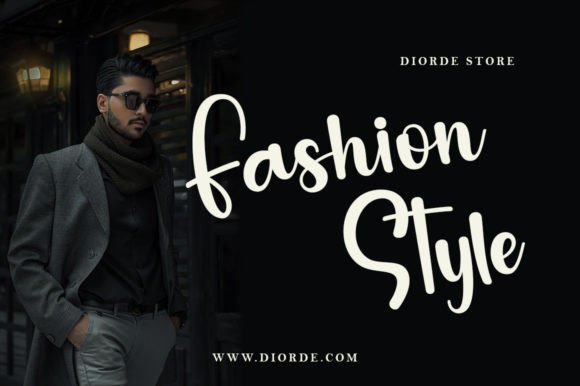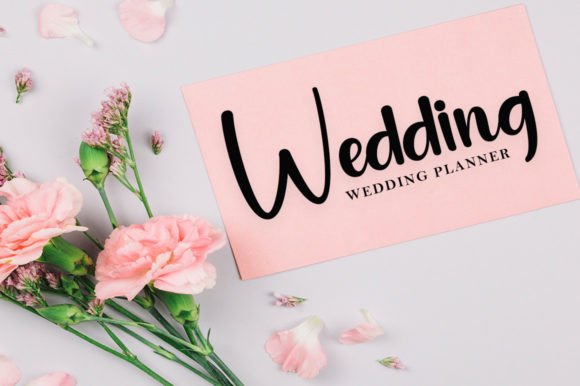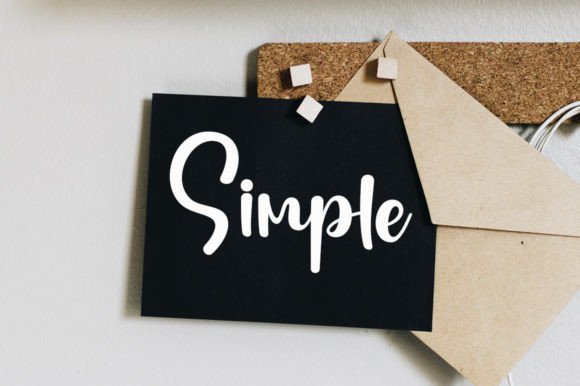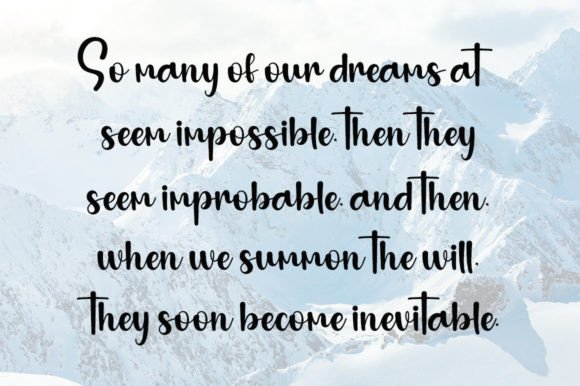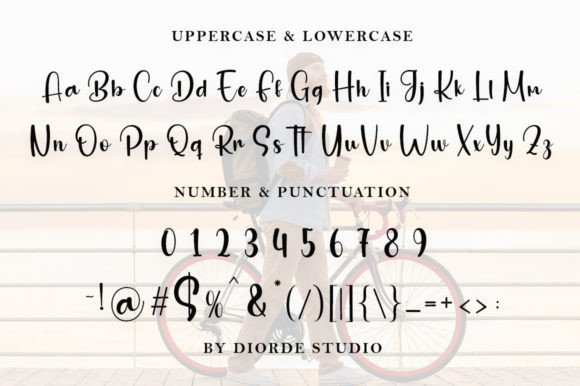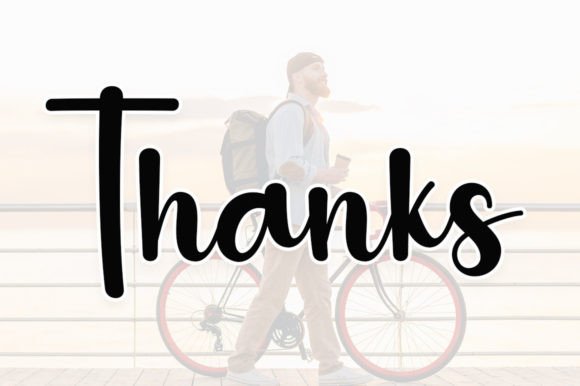
Biker Font: Adding a Sweet and Friendly Touch to Your Designs
Are you looking for a font that can add a fun and playful touch to your designs? Look no further than Biker Font! This sweet and friendly handwritten font is perfect for creating wedding invitations, cards, and other designs that require a personal and approachable feel. In this article, we’ll take a closer look at Biker Font, its features, and how you can use it to elevate your designs.
What is Biker Font?
Biker Font is a fresh and neat handwritten font that is designed to bring a sense of fun and playfulness to your designs. Its sweet and friendly style makes it perfect for a variety of projects, from wedding invitations and cards to posters and social media graphics. The font’s clean and simple lines ensure that it remains legible and easy to read, making it a great choice for designers and crafters.
Key Features of Biker Font
- Sweet and Friendly Style: Biker Font has a unique and charming style that is sure to capture the attention of your audience.
- Fresh and Neat Design: The font’s clean and simple lines make it easy to read and perfect for a variety of design projects.
- Handwritten Feel: Biker Font has a personal and approachable feel that makes it perfect for creating designs that require a human touch.
- Legible and Readable: The font’s clear and simple lines ensure that it remains legible and easy to read, even at small sizes.
Uses for Biker Font
Biker Font is a versatile font that can be used for a variety of design projects. Here are some ideas to get you started:
- Wedding Invitations: Biker Font is perfect for creating beautiful and unique wedding invitations that set the tone for your special day.
- Cards and Stationery: The font’s sweet and friendly style makes it perfect for creating cards, stationery, and other paper crafts.
- Posters and Flyers: Biker Font can add a fun and playful touch to your posters and flyers, making them stand out from the crowd.
- Social Media Graphics: The font’s clean and simple lines make it perfect for creating social media graphics that are easy to read and visually appealing.
Tips for Using Biker Font
Here are some tips for getting the most out of Biker Font:
- Pair it with Other Fonts: Biker Font pairs well with other fonts, so don’t be afraid to experiment with different combinations to find the perfect look for your design.
- Use it for Headings and Titles: The font’s bold and playful style makes it perfect for headings and titles, while its clean lines ensure that it remains legible.
- Add a Personal Touch: Biker Font has a personal and approachable feel, so don’t be afraid to add your own personal touch to your designs.
| Font Name | Biker Font |
| Author | Diorde Studio |
Biker Font is a sweet and friendly handwritten font that is perfect for adding a fun and playful touch to your designs. Its fresh and neat design, combined with its legible and readable style, make it a great choice for designers and crafters. Whether you’re creating wedding invitations, cards, or social media graphics, Biker Font is sure to bring a smile to your audience’s face. So why not give it a try and see how it can elevate your designs?